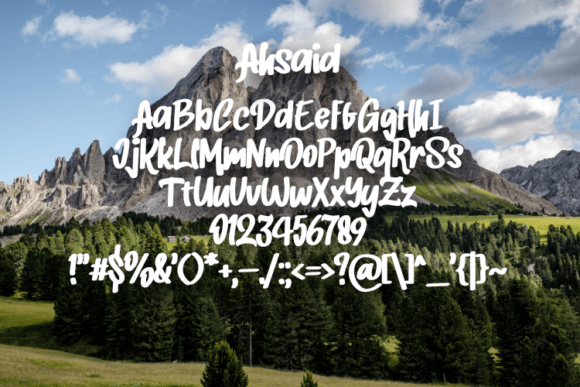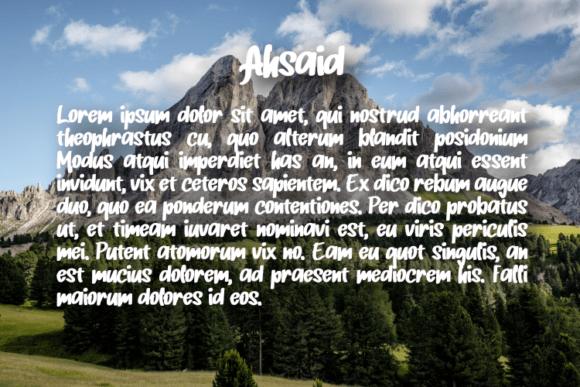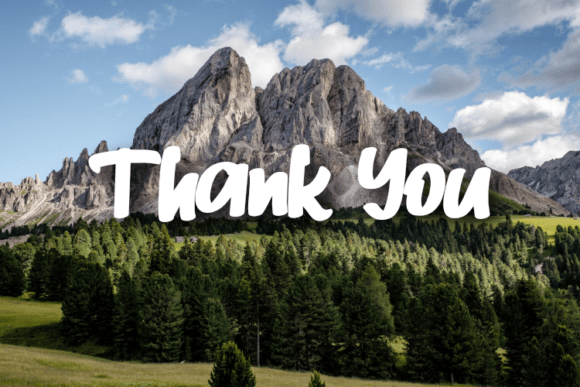
Unlock the Power of Elegance with Ahsaid Font
In the realm of design, typography plays a pivotal role in conveying messages, evoking emotions, and creating lasting impressions. For designers and crafters seeking to elevate their visual creations, Ahsaid Font emerges as a versatile and sophisticated solution. This beautifully crafted typography masterpiece is designed to enhance the aesthetic value of clothing and product designs, making it an indispensable tool for creatives aiming to leave a mark in any marketplace.
The Versatility of Ahsaid Font
Ahsaid Font stands out for its impeccable versatility, suiting a vast range of design concepts with ease. Whether you’re working on a minimalist project that requires subtle elegance or a bold design that needs a statement font, Ahsaid seamlessly adapts to your creative vision. Its elegant strokes and balanced structure make it an ideal choice for designers looking to add a touch of sophistication to their visuals.
Elegance at Its Finest
What sets Ahsaid Font apart is its ability to bring an air of elegance to any design. Its characters are meticulously designed to contribute to a visually appealing aesthetic that can make any product or clothing design stand out. With Ahsaid, your visuals won’t just be seen; they’ll be experienced, leaving a lasting impression on your audience.
Elevate Your Creativity with Ahsaid
For designers and crafters looking to push the boundaries of their creativity, Ahsaid Font is a game-changer. It not only enhances the aesthetic value of your designs but also provides the flexibility and compatibility needed for a smooth design process. With Ahsaid, you can:
- Explore a wide range of design possibilities with a single, versatile font.
- Save time with a font that’s easily integrable into any design workflow.
- Leave a lasting impression with elegant and sophisticated visuals.
Experience the Brilliance of Ahsaid Font
The brilliance of Ahsaid Font lies in its simplicity and the powerful impact it can have on your designs. It’s not just a font; it’s a design element that can elevate your work from ordinary to extraordinary. By incorporating Ahsaid into your typography arsenal, you’re not just choosing a font; you’re embracing a design philosophy that values elegance, versatility, and creativity.
Ahsaid Font is more than just a typography option; it’s a creative partner that can help designers and crafters achieve their aesthetic goals. With its versatile design, elegant appearance, and seamless compatibility with all software systems, Ahsaid is poised to become an essential tool in your design toolkit. Whether you’re aiming to enhance your clothing designs, product visuals, or any other creative project, Ahsaid Font offers the perfect blend of style and functionality. Experience the brilliance of Ahsaid Font today and take your designs to new heights of elegance and sophistication.